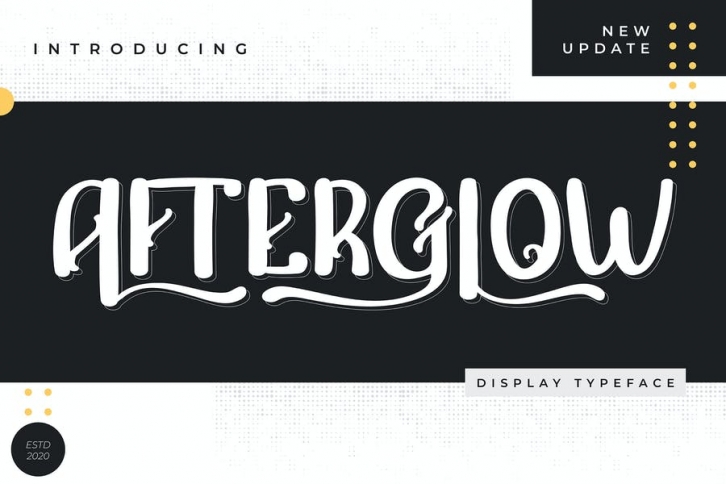
Afterglow | Display Typeface Font with a calligraphy style, So beautiful on invitation like greeting cards, branding materials, business cards, quotes, posters, and more!
- Alternates and Ligatures